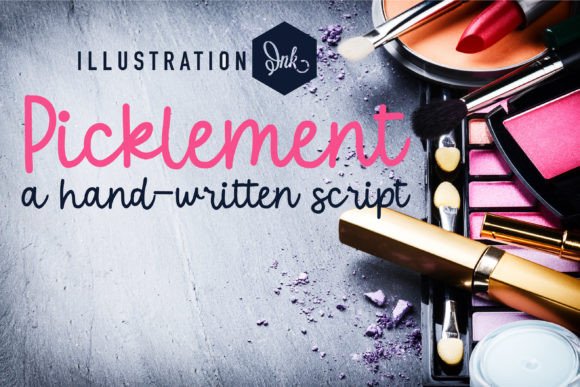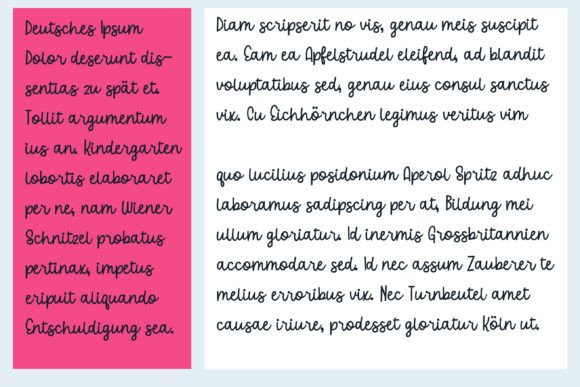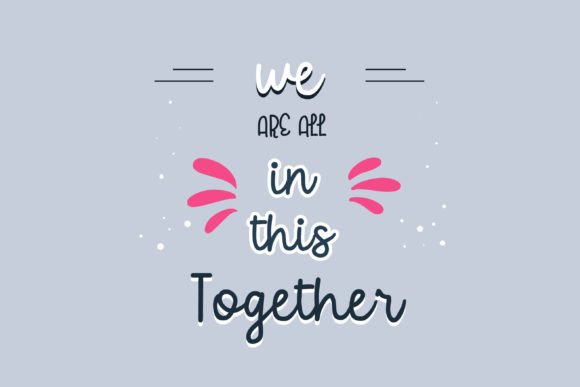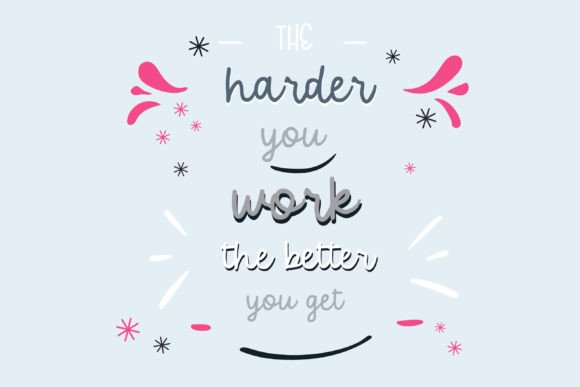
Picklement Font: Cute Handwritten Script for Social Media Design
About the Picklement Font
Welcome to the world of Picklement Font, a typeface that will inspire your next great project. Picklement is a hand-written cursive script that has a print-like uppercase and bouncy baseline. No matter the topic, this font will be an incredible asset to your fonts’ library, as it has the potential to elevate any creation.
Picklement’s playful energy makes it ideal for headlines, short text blocks on packaging, and branding elements where a touch of whimsy is desired. It works exceptionally well for invitations, greeting cards, and social media graphics. However, its handwritten nature and bouncy baseline make it unsuitable for body text or UI elements requiring high readability. Extended use will quickly become fatiguing for the reader.
Its informal character pairs well with clean sans-serif fonts like Open Sans or Lato for a balanced contrast, or with a geometric sans-serif like Futura for a more modern feel. For a more luxurious pairing, consider a delicate serif such as Garamond or a slightly more formal script font with less pronounced bounce to maintain visual interest without overwhelming the design.
Picklement’s overall personality is best described as friendly and approachable, yet with a touch of boldness. This makes it a versatile choice for brands targeting a younger demographic or conveying a lighthearted, optimistic message.